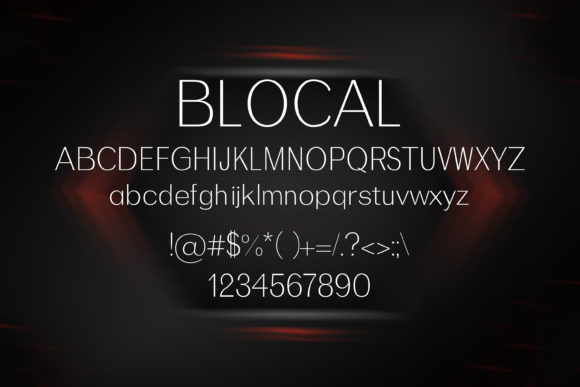
The Blocal Font: A Modern Twist on Traditional Sign Painting
I’ll never forget the design project that led me to discover the Blocal Font. I was working on a branding project for a local coffee shop, and I needed a font that would capture the essence of their hand-painted signage. I scoured the internet for hours, but nothing seemed quite right. That was until I stumbled upon Blocal Font, a stunning sans serif font that combines the charm of traditional sign painting with a modern twist.
• ✨ Clean and minimal design that works perfectly for modern designs
• 💡 OpenType features that allow for creative experimentation
• 🎨 A range of stylistic alternates to add visual interest
While Blocal Font is an excellent choice for many projects, it’s not without its quirks. Here are a few things to keep in mind:
• ⚠️ Some users may find the font a bit too condensed for certain applications
• 🤔 Limited support for non-English languages
The Designer Inspiration Behind Blocal Font
Blocal Font was inspired by the traditional sign painting of the past, with a modern twist. The designer wanted to create a font that would capture the essence of hand-painted signage, while also meeting the demands of modern design. The result is a font that’s both clean and minimal, yet full of character.
What is Blocal Font? Blocal Font is a sans serif font inspired by traditional sign painting, with a modern twist.
Does Blocal Font support non-English languages? Blocal Font has limited support for non-English languages. Please check the font documentation for specific details.